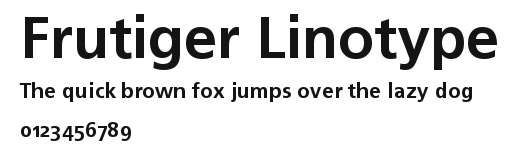
• Designer: Adrian Frutiger
• Description: In 1968, Adrian Frutiger was commissioned to develop a lettering system for the new Charles de Gaulle Airport in Paris. He created Frutiger, a font whose character fit in with the modern architecture of the airport. Frutiger is neither purely constructed nor ornamental, its forms designed so that each individual character is quickly and easily recognized, even from a distance. Such clarity and legibility makes Frutiger the perfect font for signage and other applications, where the distinctness of characters is of high importance.
Frutiger Linotype.ttf is a modern, elegant sans-serif font designed for ultimate readability and visual harmony. Perfect for branding, headlines, web design, and print materials.